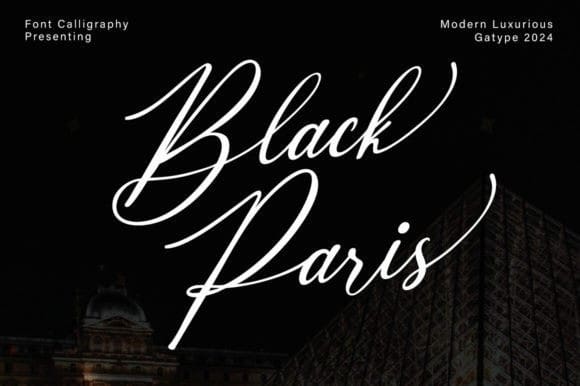
Black Paris Font
Black Paris Font. This beautiful script is for those who need elegance and style for their designs and is perfect for wedding invitations, save-the-date cards, and feminine branding.